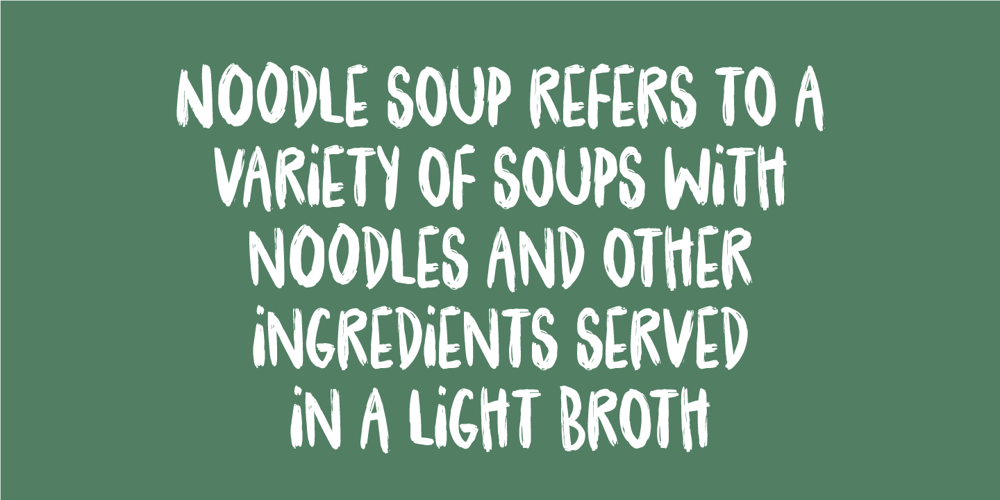
Empty Streets Font Family was designed by Jakob Fischer and published by PizzaDude.dk. Empty Streets contains 1 styles and family package options. Empty Streets is a brush made font with loads of attitude!